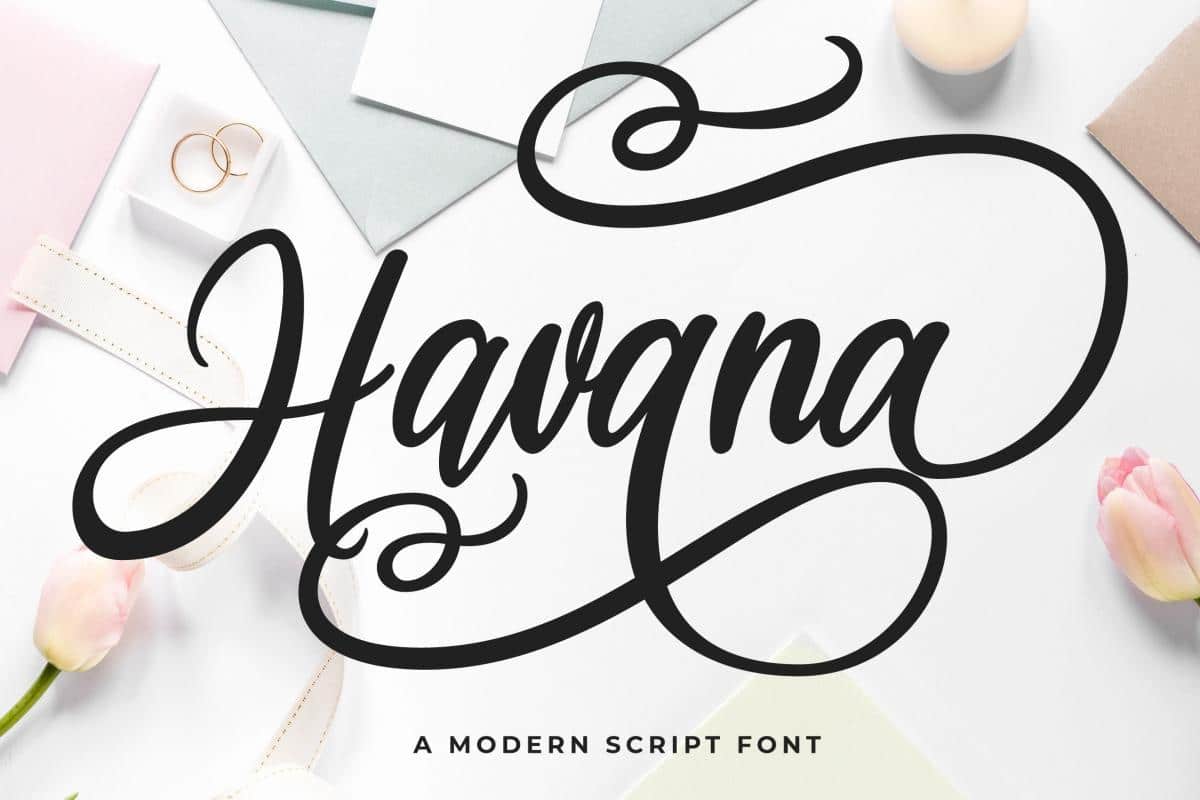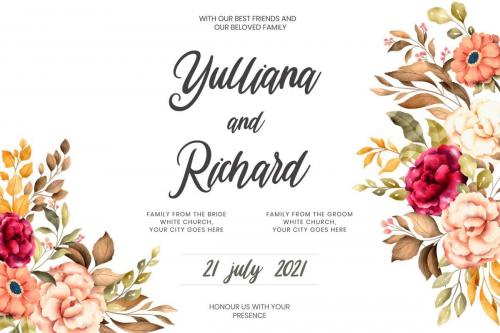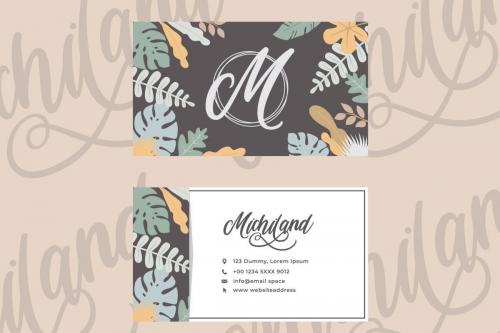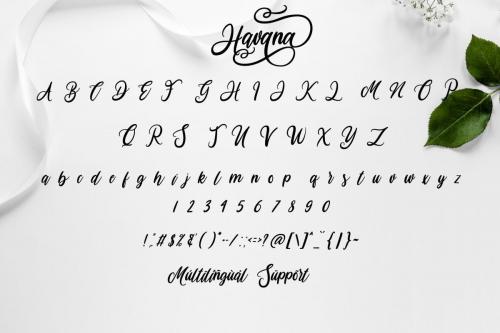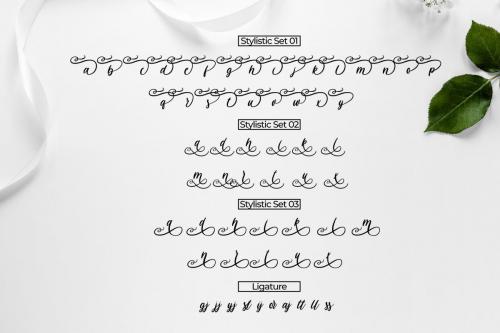
Havana is modern script font, but also fancy. This versatile script font has a wide range of applications ranging from greeting cards to headlines and is guaranteed to add a romantic touch to your next design.
This font is PUA encoded which means you can access all of the cute glyphs and swashes with ease! It also features a wealth of special features including alternate glyphs and ligatures. I hope you enjoy it !!